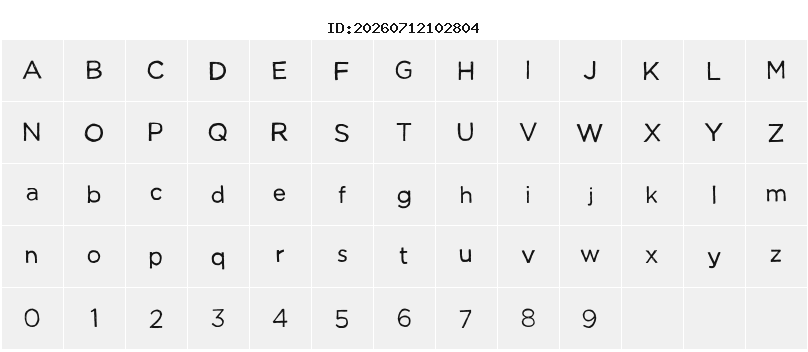
• Font Name: Manhattan Hand
About Manhattan Hand.ttf
Manhattan Hand.ttf is a modern, elegant sans-serif font designed for ultimate readability and visual harmony. Perfect for branding, headlines, web design, and print materials.